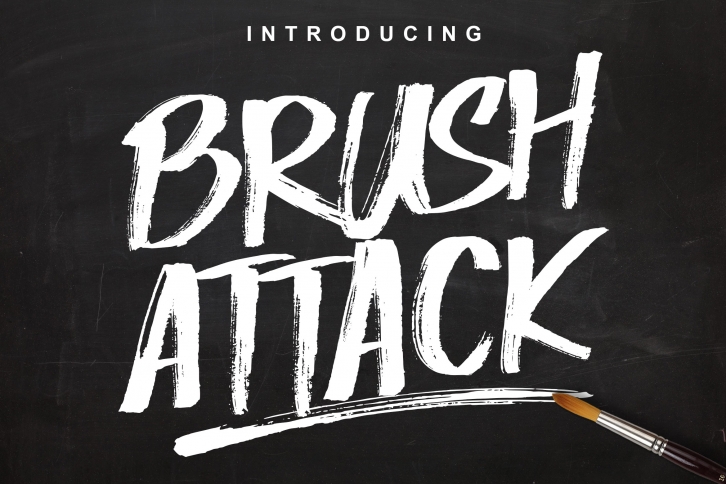
Brush Attack is a beautiful font that was designed by lettersiro co. It's a great choice for designers and creatives who need such a font. It was released on February 23, 2019 and the file size is 14.4 MB. Brush Attack may give a more youthful, expressive and casual look to your project. It is a very beautiful, refined, elegant, and high-quality font.